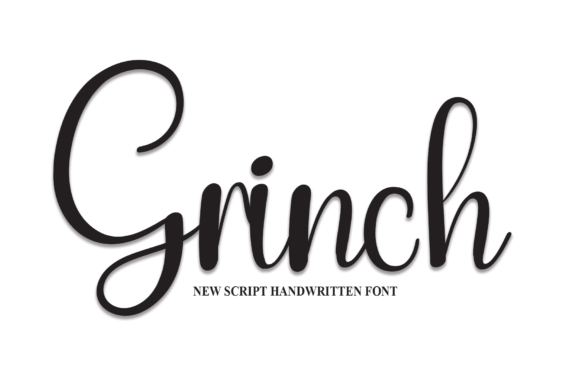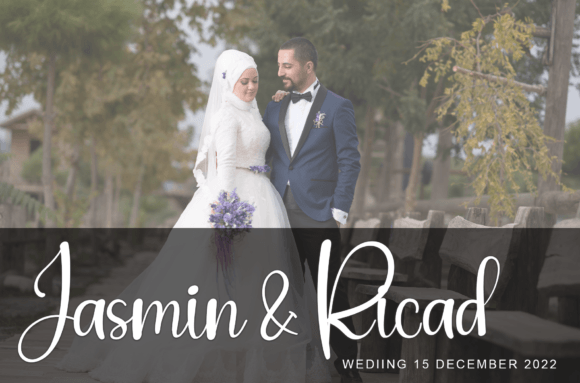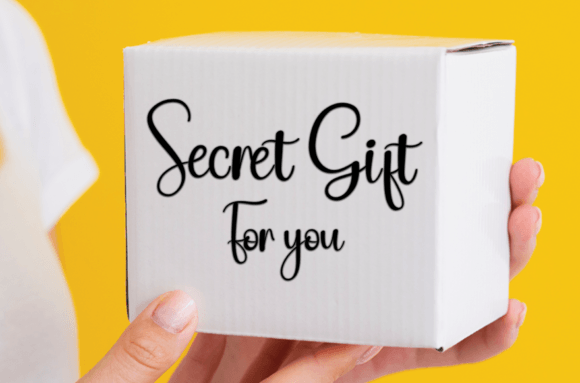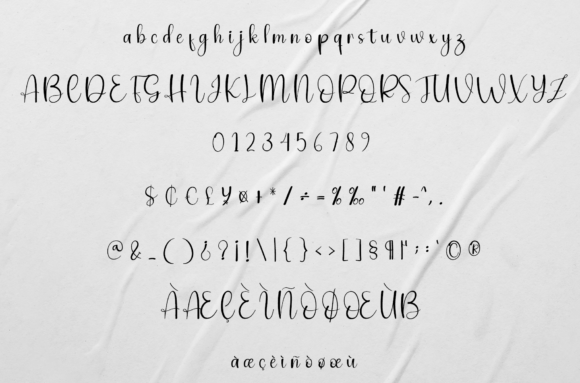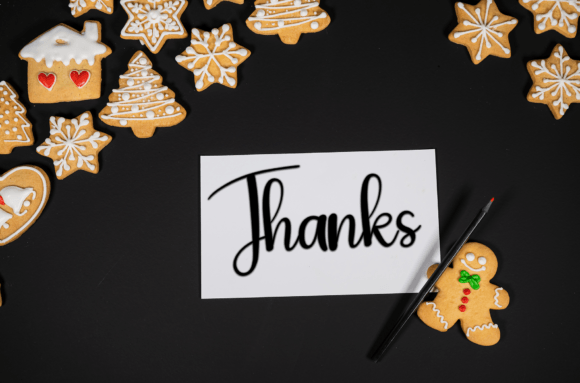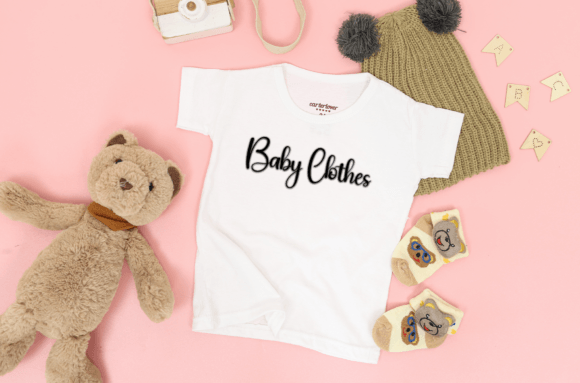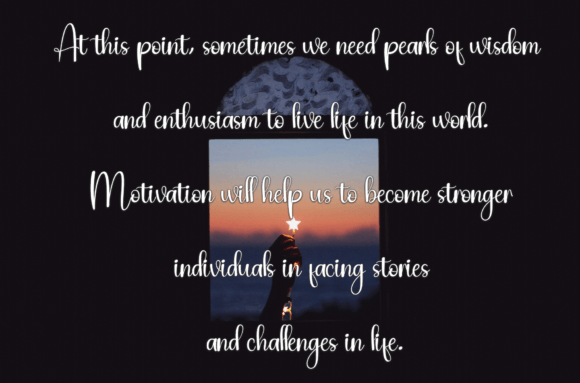
Grinch Font
About Grinch Font
Grinch font is a fun and friendly handwritten typeface designed to bring a playful and approachable vibe to your creative projects. Whether you’re working on crafts, digital designs, presentations, or greeting cards, this font offers an inviting style that suits a wide variety of occasions.
Playful and Warm Handwriting Style
The charm of Grinch font comes from its casual and easygoing strokes. Its natural, friendly curves add a personal touch to your text, making it perfect for projects that require a joyful and readable handwritten look. This font balances fun with clarity, ensuring your message connects with your audience.
Versatile Applications for Grinch Font
Grinch font adapts beautifully to various creative uses such as:
• Craft projects and DIY designs
• Digital graphics and social media content
• Presentation slides and marketing materials
• Greeting cards, invitations, and announcements
• Posters, banners, and promotional designs
Its versatility makes Grinch font a reliable choice for both print and digital projects, perfect for designers seeking a handwritten style that is both fun and professional.
Adding Personality and Cheer to Your Designs
Using Grinch fon adds warmth and personality to your designs. It helps create a friendly and engaging atmosphere, making your projects feel more welcoming and memorable. The font’s playful yet clear style enhances your work with a unique charm.
Why Choose Grinch Font?
• Casual and friendly handwritten style
• Clear and easy-to-read letterforms
• Versatile for print and digital projects
• Adds warmth and personality
• Suitable for a wide range of creative applications
Final Thoughts on Grinch Fon
In conclusion, Grinch fon is a delightful and approachable handwritten typeface perfect for crafts, digital designs, presentations, and greeting cards. Its warmth and playfulness make it an excellent choice for any project needing a personal touch.